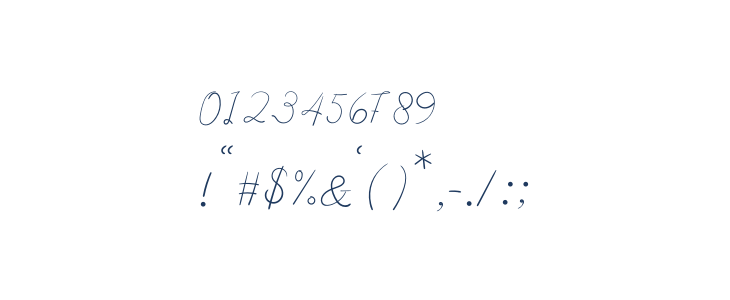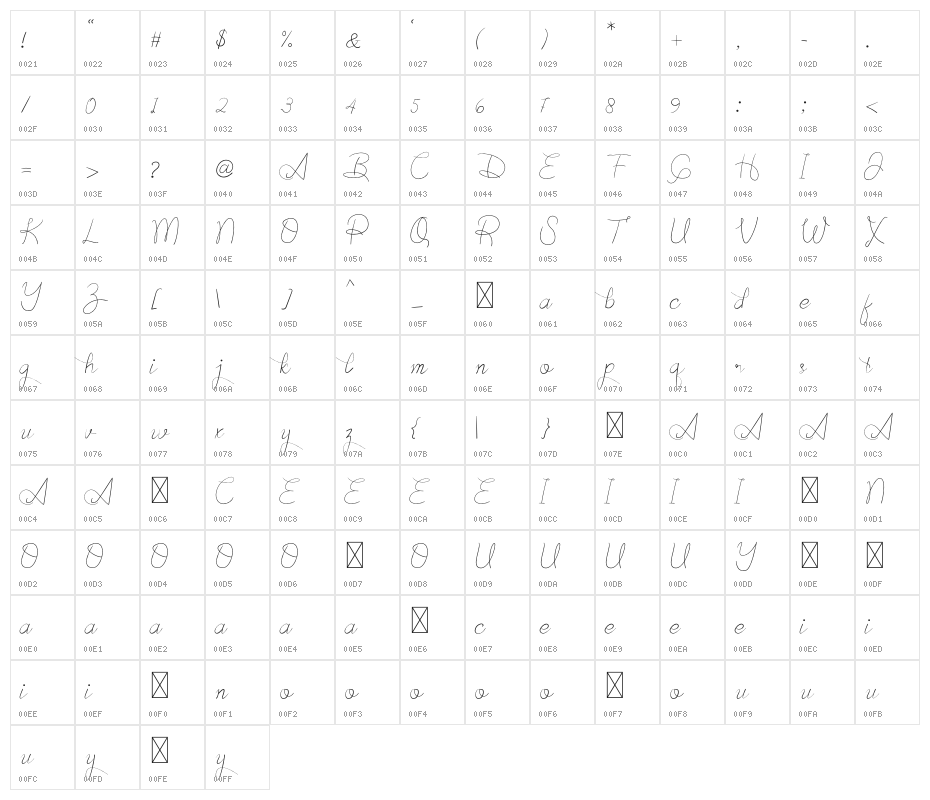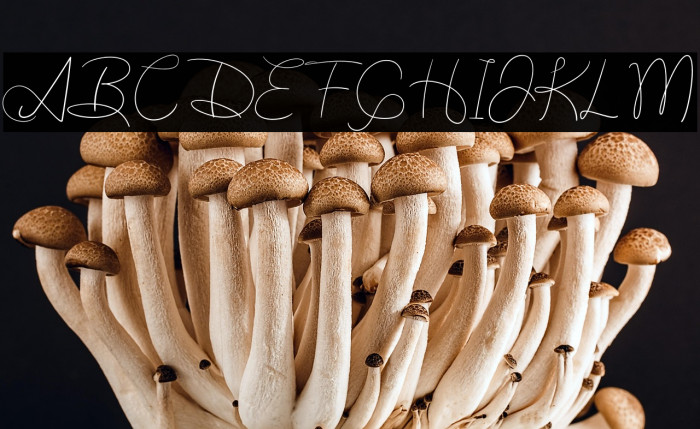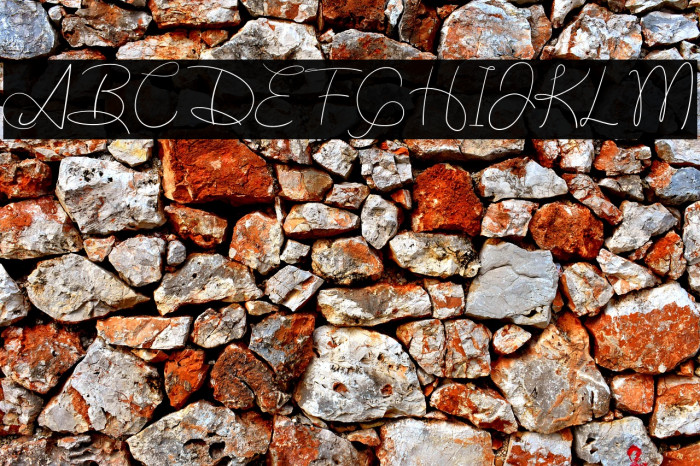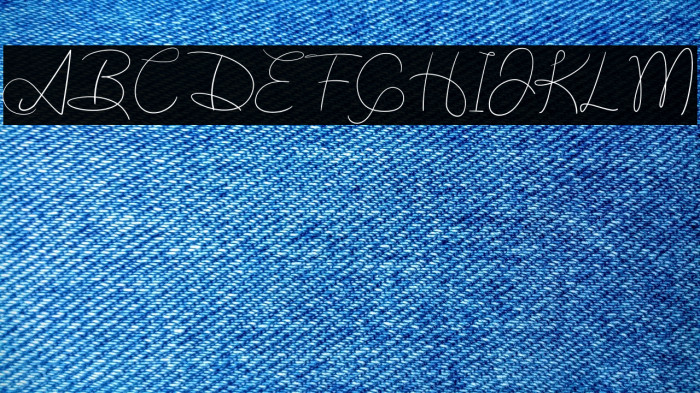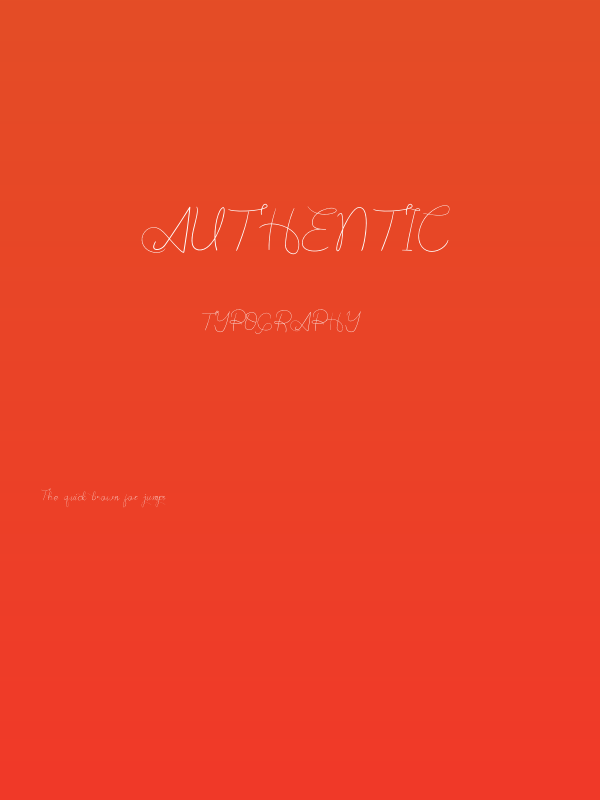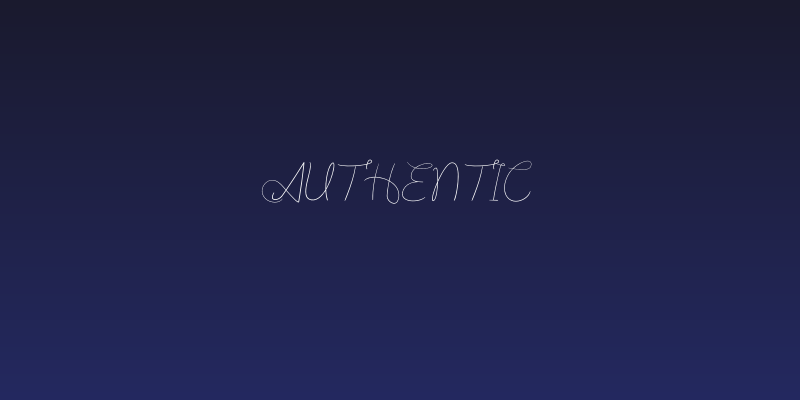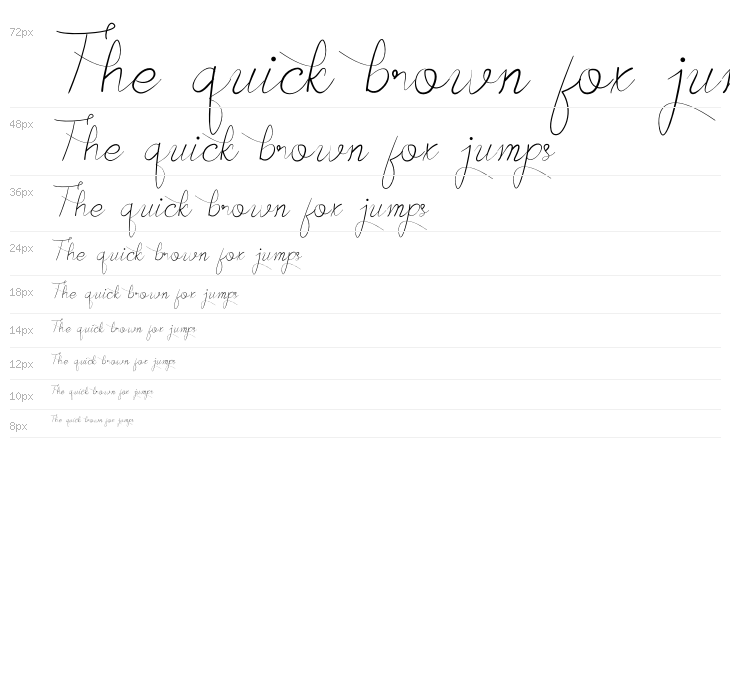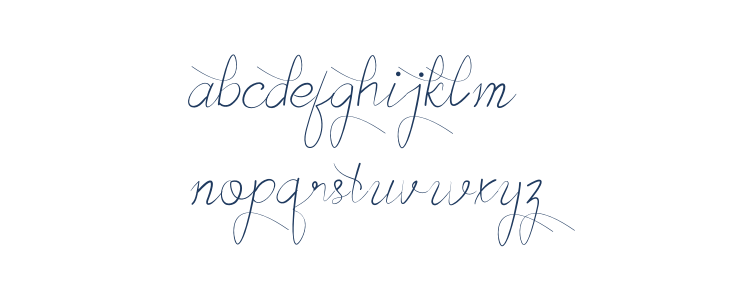
Authentic Font
Authentic Description
This elegant script font features a flowing, cursive style with delicate, thin strokes and intricate loops. The uppercase letters are characterized by their sweeping curves and graceful lines, while the lowercase letters maintain a consistent fluidity that enhances readability. The numerals and special characters are designed with the same attention to detail, ensuring a cohesive look throughout. This font's sophisticated appearance makes it ideal for formal invitations, branding, and decorative purposes. Its artistic flair and refined elegance are perfect for projects that require a touch of class and sophistication.
| Overall Style | Elegant, Decorative |
| Proposed Projects | Ideal for wedding invitations, luxury branding, greeting cards, and decorative signage. |